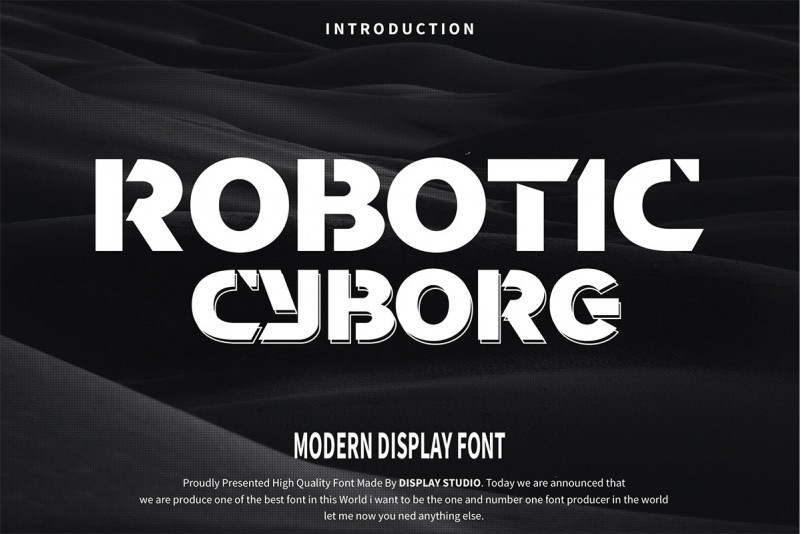
Robotic Cyborg Display Typeface
Introducing our new release, Robotic Cyborg Modern Display Font. This typeset is perfect for brand logo, invitations, greeting card, or even any kind of project. With multilingual feature and style variations, this typeface would further enhance the aestethical aspect of your work.